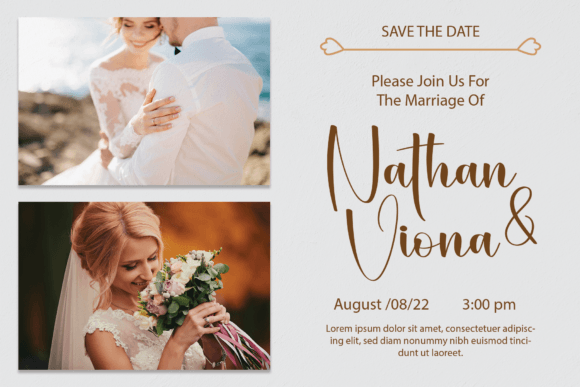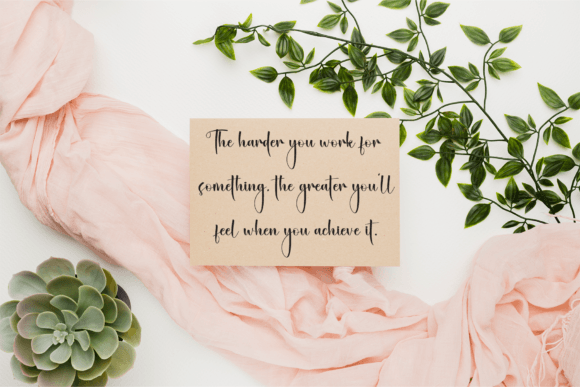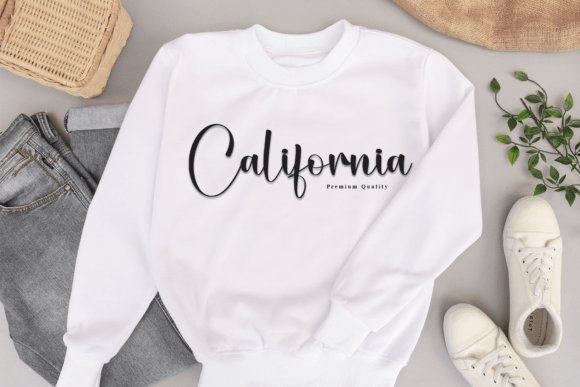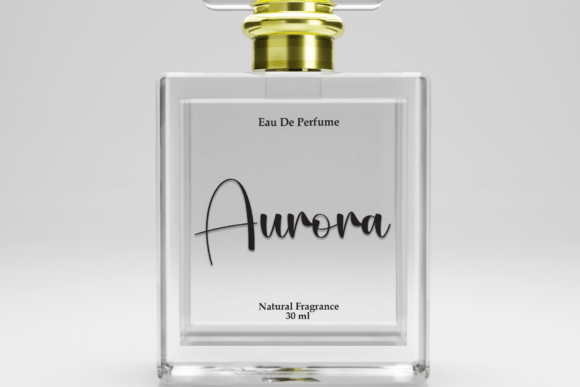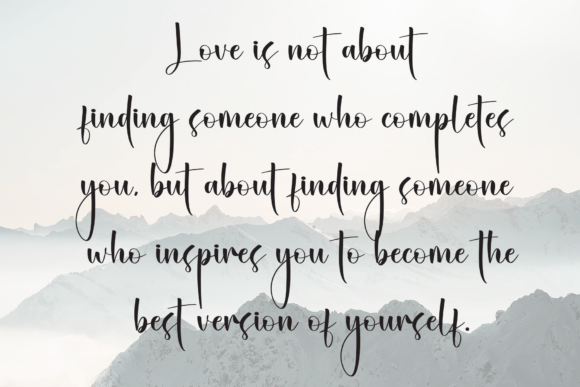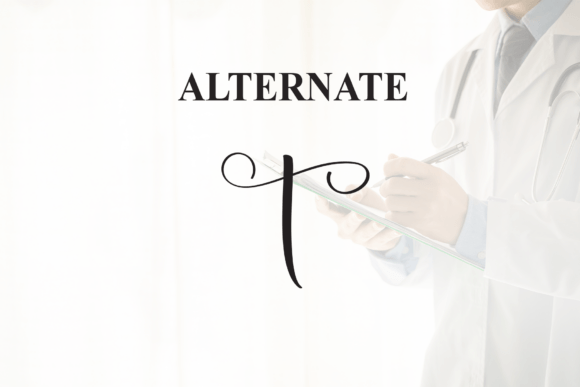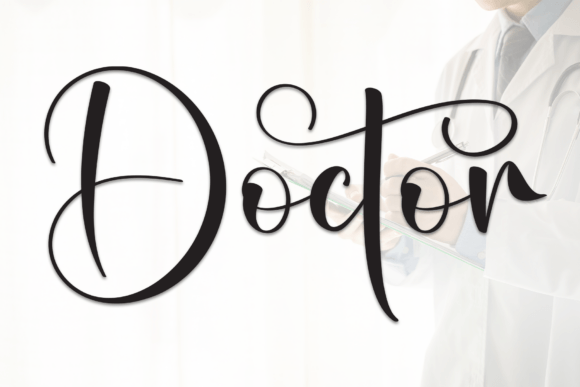
Introducing Doctor Font: Elevate Your Creativity with Elegance
Are you a designer, crafter, or DIY enthusiast looking for a font that can add a touch of magic to your creative projects? Look no further than Doctor Font, a beautiful script font that combines elegance with a whimsical flair. In this article, we’ll explore the features and benefits of Doctor Font, and show you how it can transform your designs, Instagram posts, and DIY projects into stunning works of art.
The Story Behind Doctor Font
Doctor Font is a carefully crafted script font that is designed to bring a touch of sophistication and elegance to your designs. With its flowing lines and intricate details, this font is perfect for anyone looking to add a bit of luxury and refinement to their creative projects. Whether you’re working on a branding project, creating social media graphics, or designing a DIY craft, Doctor Font is the perfect choice.
Key Features of Doctor Font
- Magical Script Font: Doctor Font is a script font that is designed to add a touch of magic to your designs. Its flowing lines and intricate details make it perfect for creating beautiful calligraphy scripts and elegant text.
- Elegant and Refined: This font is carefully crafted to bring a touch of sophistication and elegance to your designs. Its classic style makes it perfect for luxury brands, wedding designs, and other high-end projects.
- Versatile: Doctor Font is a versatile font that can be used for a wide range of creative projects, from social media graphics to DIY crafts.
Uses for Doctor Font
Doctor Font is a versatile font that can be used for a wide range of creative projects. Here are some ideas to get you started:
- Instagram Graphics: Use Doctor Font to create stunning Instagram graphics that will make your followers stop and take notice. From inspirational quotes to promotional graphics, this font is perfect for adding a touch of elegance to your social media posts.
- DIY Projects: Add a touch of luxury to your DIY projects with Doctor Font. From handmade cards to craft tutorials, this font is perfect for creating beautiful calligraphy scripts and elegant text.
- Branding and Logo Design: Use Doctor Font to create a luxurious brand identity that will set your business apart from the competition. This font is perfect for creating elegant logos, business cards, and other branding materials.
- Wedding Designs: Doctor Font is a popular choice for wedding designs, including wedding invitations, place cards, and other stationery.
Tips for Using Doctor Font
Here are some tips for getting the most out of Doctor Font:
- Experiment with Different Sizes: Doctor Font looks great in a variety of sizes, from large headings to smaller body text. Experiment with different sizes to find the perfect fit for your project.
- Pair with Other Fonts: Doctor Font pairs well with a variety of other fonts, including sans-serif fonts and other script fonts. Experiment with different font combinations to find the perfect look for your project.
- Add a Personal Touch: Use Doctor Font to add a personal touch to your designs. From hand-drawn illustrations to watercolor textures, this font is perfect for adding a touch of elegance and sophistication to your creative projects.
Doctor Font is a beautiful script font that is perfect for designers, crafters, and DIY enthusiasts looking to add a touch of elegance and sophistication to their creative projects. With its magical lines and intricate details, this font is sure to transform your designs, Instagram posts, and DIY projects into stunning works of art. So why wait? Download Doctor Font today and start creating your own magical designs!